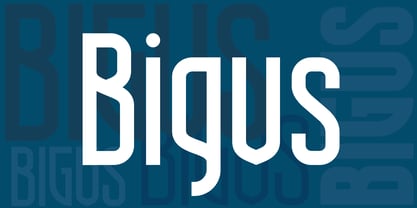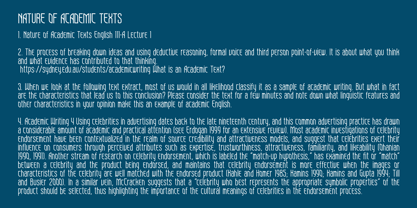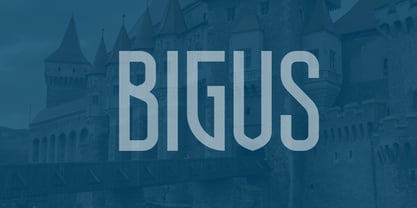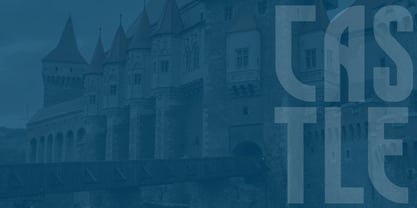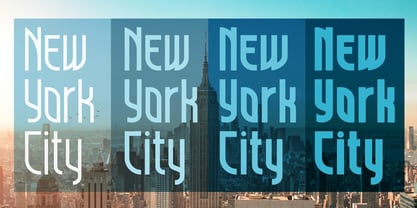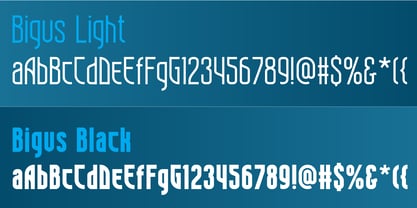
Bigus
by VladB
Bigus is a modern narrow sans serif geometric font, includes upper and lower case characters, Latin, Cyrillic, Latin Eastern Europe, Turkish, Baltic and other (500+ signs).
The Bigus family have the 4 types of thickness.
Bigus fonts will be useful in developing a brand, creating posters and other graphic products, and for word processing.
Designers: Volodymyr Berla
Foundry: VladB